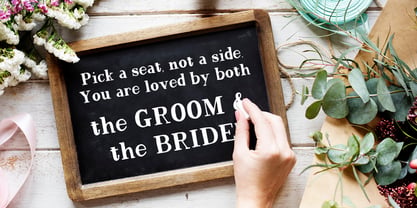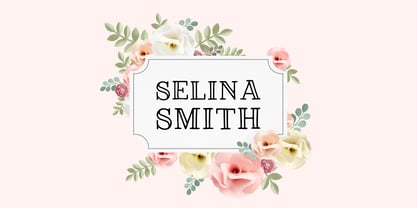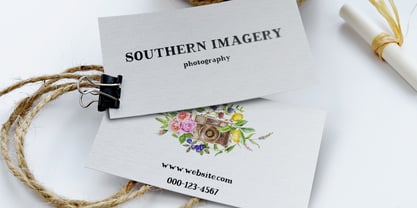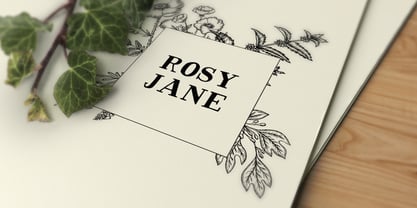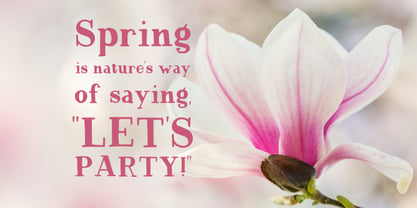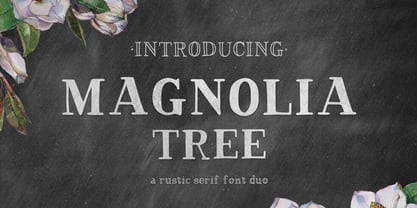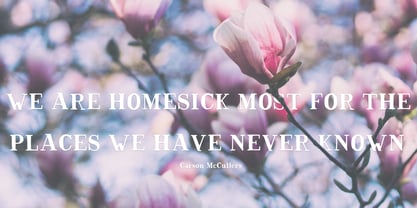
Magnolia Tree Serif
by BeckMcCormick
The Magnolia Tree Serif Font Family was designed by Beck McCormick and published by BeckMcCormick. Magnolia Tree Serif contains 2 styles and family package options. More about this family
Magnolia Tree Serif is a beautiful hand-lettered serif font duo — a regular version, and an in-line version is included. It has just enough rustic charm & refinement, without the harsh edges & corners of a traditional serif font. Inspired by Charleston, Magnolia Tree is sweetly southern! Magnolia Tree is fantastic for your next project, including branding, wedding invitations, signage, & more. The Magnolia Tree duo includes Western European language support.